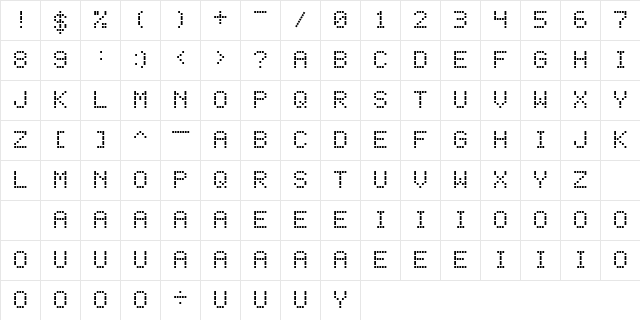
Square Dot-Matrix Regular
| Foundry | Krafti Lab |
| Designer | Onur Cem TAN |
Design Context for Square Dot-Matrix Typeface
Square Dot-Matrix celebrates the constraints of early digital type, turning pixel geometry into a distinctive and immediately recognisable style.
Well-suited to indie game interfaces, retro computing aesthetics, and pixel art-adjacent design work.